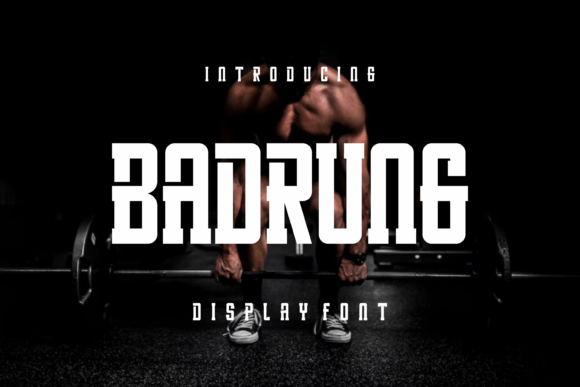
Immerse yourself in the world of Badrung, a visionary display font family crafted by the ingenious lelevien. This extraordinary creation was meticulously engineered to captivate your audience, leaving a trail of awe in its wake. Its condensed structure adds a touch of elegance and sophistication to your words, transforming them into captivating expressions of art.
Unlock the secrets of Badrung and embark on a typographic odyssey. Its carefully crafted characters possess a timeless allure, effortlessly blending the charm of the past with the vibrancy of the present. Whether you grace the pages of a magazine, design a stunning logo, or craft a captivating poster, Badrung will elevate your creations to new heights of brilliance.
With Badrung, you'll discover a font that transcends the boundaries of ordinary. Its remarkable versatility empowers you to paint your words with the colors of your imagination, breathing life into your designs. From the grand sweep of a billboard to the delicate strokes of a name card, Badrung adapts seamlessly, enhancing your message with its inherent grace and charisma.
Unleash your creativity and witness the transformation as your words morph into captivating works of art. Badrung's inherent charm effortlessly captivates, leaving your audience spellbound. Its condensed form invites closer examination, revealing a symphony of subtle nuances that evoke a profound emotional connection.